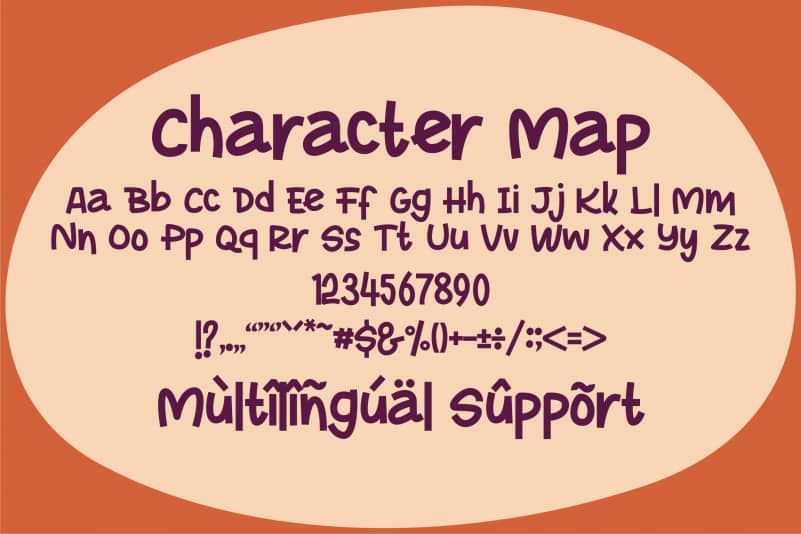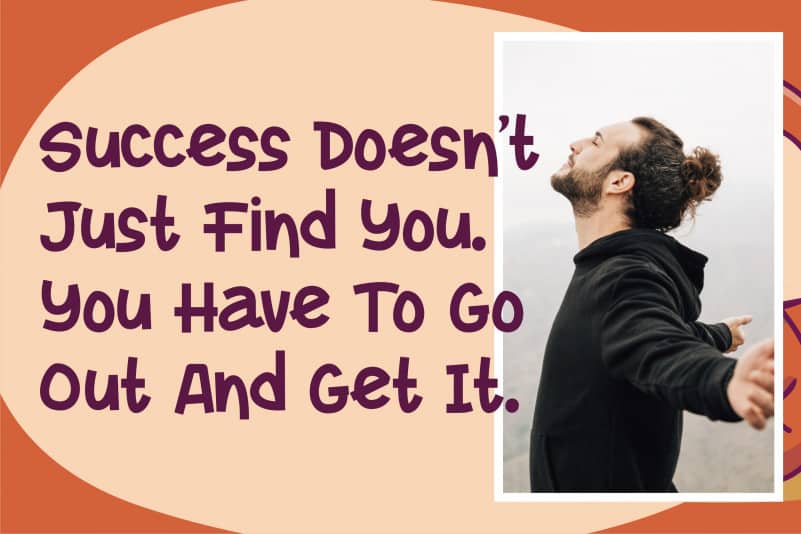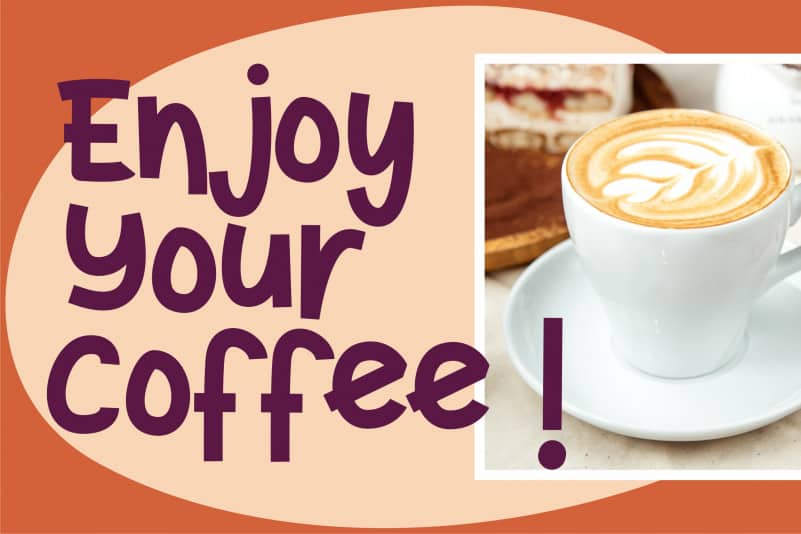
Rocky Monkey Display Font is a quirky display font with a unique style. Fall in love with its playful look and use it to bring any DIY projects to life! This font is perfect for children themed designs, especially when combined with bright colors.